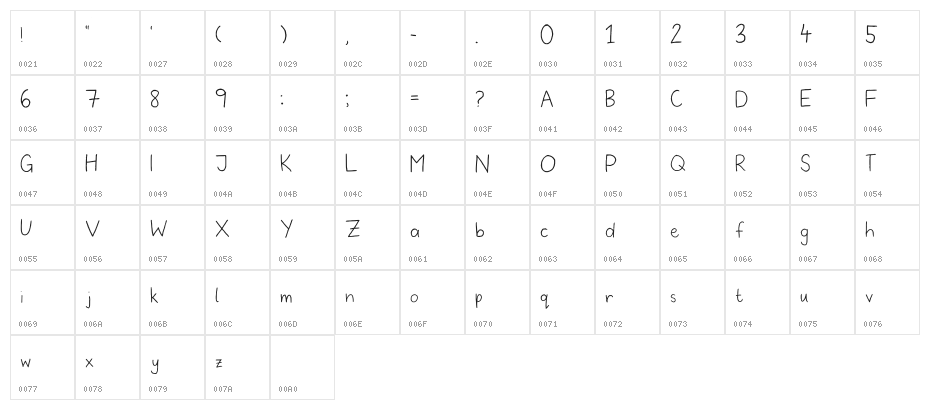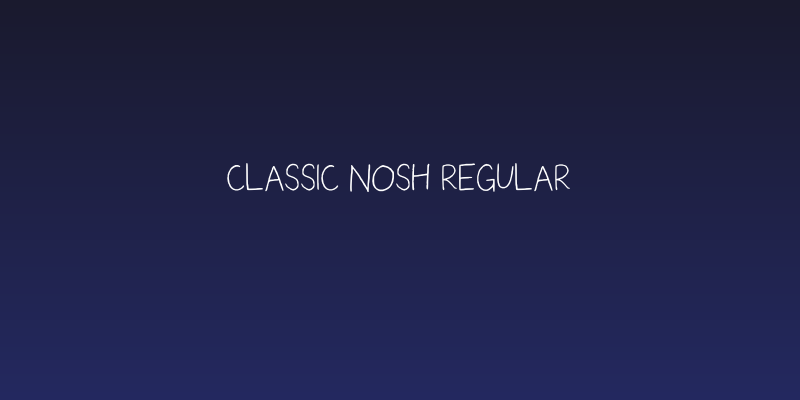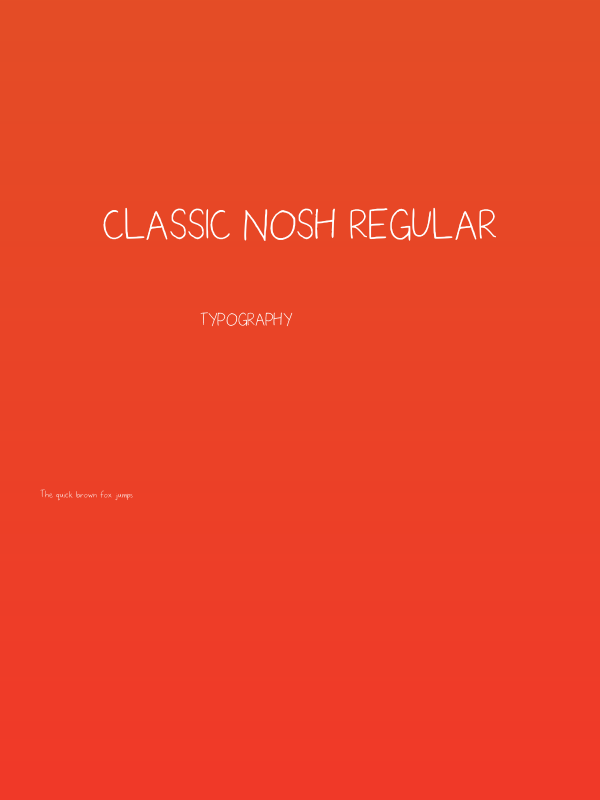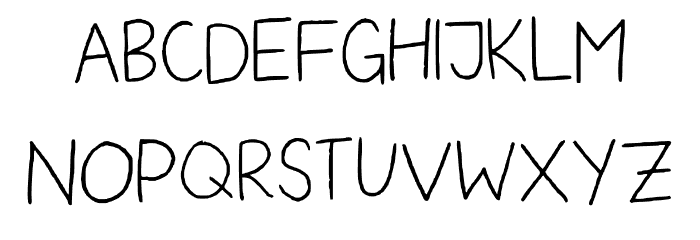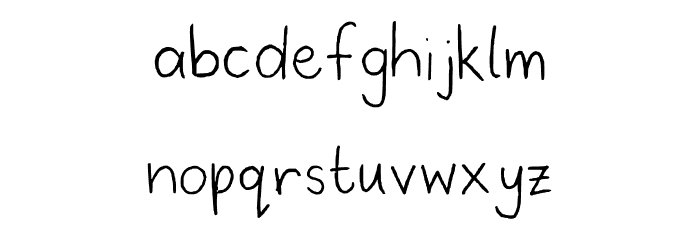
Classic Nosh Regular Font
Classic Nosh Regular Description
This font features a playful and casual handwritten style, characterized by its smooth, flowing lines and slightly irregular shapes. The uppercase letters are tall and slender, while the lowercase letters maintain a consistent height, creating a harmonious balance. The numerals are clear and legible, with a slight curve that adds to the font's approachable feel. Special characters are simple and unobtrusive, fitting seamlessly with the overall design. This font exudes a friendly and informal vibe, making it suitable for projects that require a personal touch.
| Use Case | Headlines, Informal text, Personal projects |
| Proposed Projects | Ideal for greeting cards, invitations, personal blogs, and children's book illustrations. |